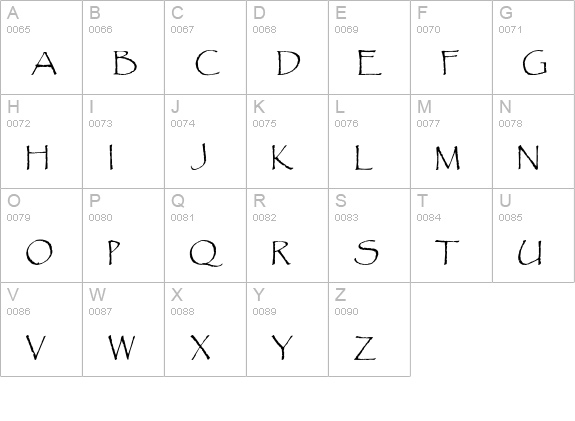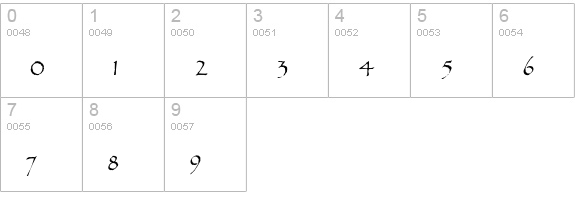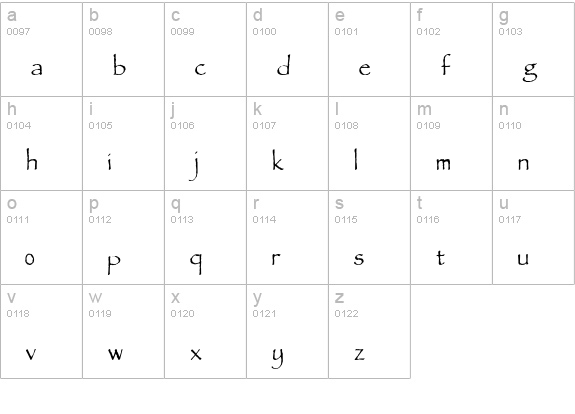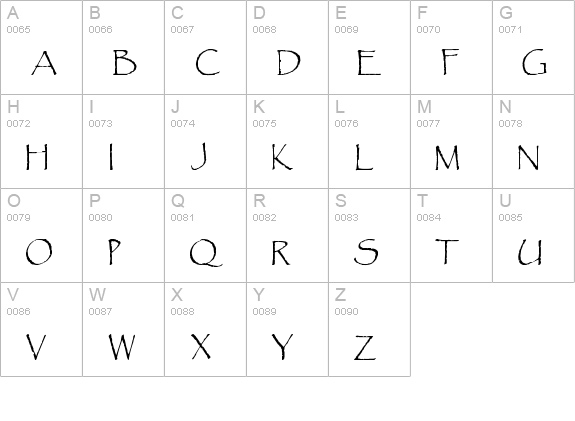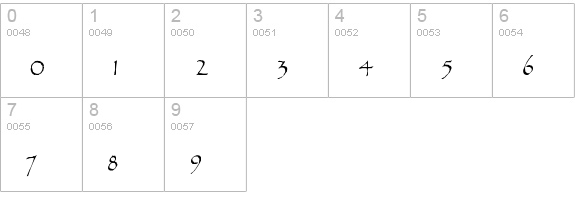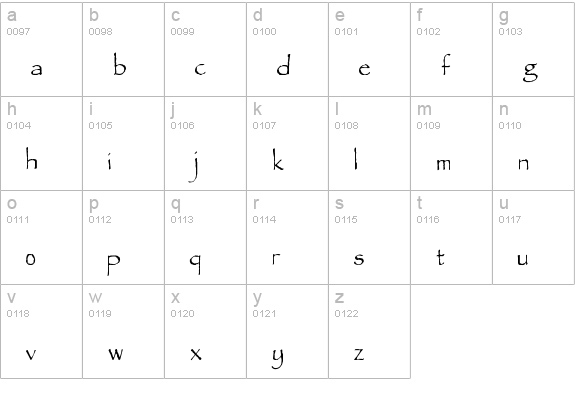
Fitzroy-Light is a refined, elegant variant in the Fitzroy typeface family \xE2\x80\x94 well suited to elegant body text, refined sub-headings, and luxury branding.
Fitzroy-Light font is a modern and elegant typeface that exudes sophistication and style. With its clean lines and subtle curves, this font is perfect for a wide range of design projects, from branding to editorial design. The light weight of the font gives it a delicate and airy quality, making it ideal for creating a sense of elegance and refinement. What sets Fitzroy-Light font apart is that it is not only visually stunning, but also free to download. That's right, you can easily access this beautiful font at FontsMarket.com without any cost. Whether you're a designer looking to add a touch of class to your work or a business owner wanting to elevate your branding, Fitzroy-Light font is a fantastic choice that won't break the bank. Download it today and start creating stunning designs with ease.